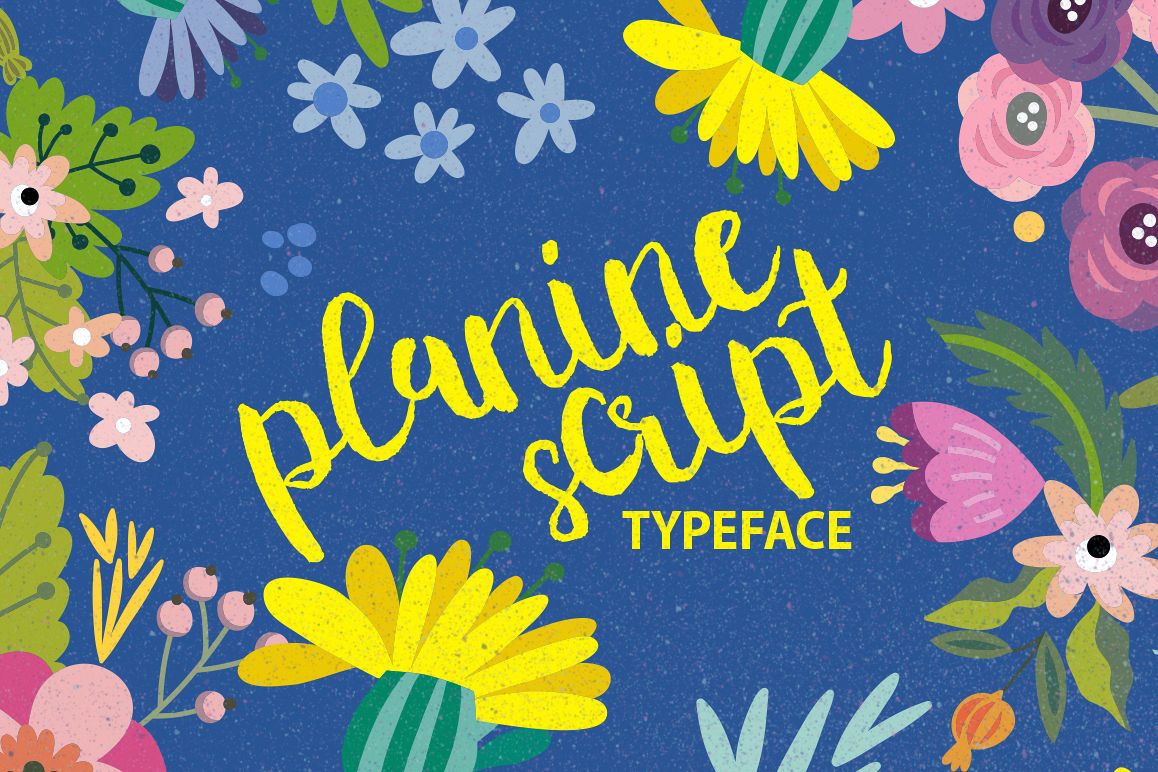
Planine Script
Planine Script Typeface
Font that feels like it has been written with a watercolor brush. Can be used for various purposes namely headings, logos, wedding invitations, t-shirts, letterheads, signages, labels, news, posters, badges etc.